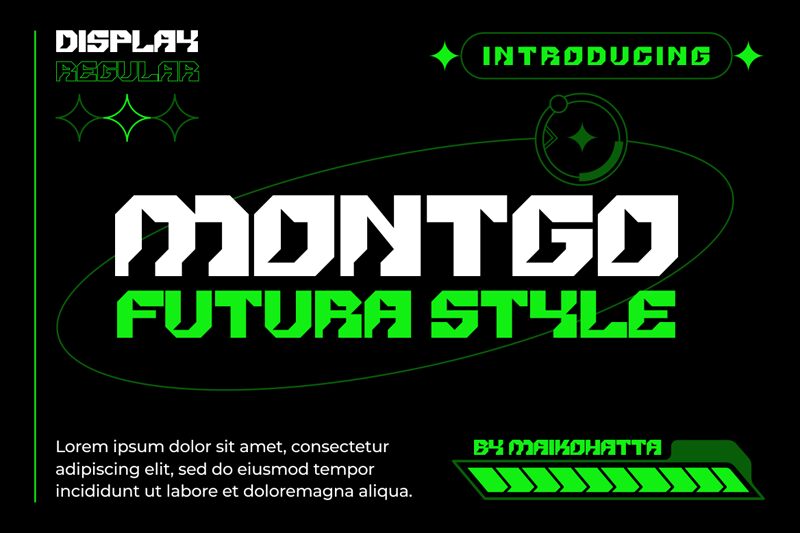
MONTGO
Montgo font by Gilang Ternadho of Maikohatta is a futuristic expanded display typeface with a bold weight and geometric, angular, and modern appearance. It is designed for getting immediate attention and being impactful whether used in large or small formats. The industrial-looking letters have block-like structures built out of straight lines and edges with no curves whatsoever. The characters look professional yet slightly unconventional which adds extra visual flavor to otherwise serious designs.
This free display font can be used to create all sorts of typography meant for posters, t-shirts, billboards, magazines, book covers, business cards, vehicle wraps as well as logos or branding projects. Montgo also works beautifully in animations like kinetic typography videos or shorts used for advertising purposes on social media channels. Shop windows, menu boards at restaurants and cafes could also benefit from its unique personality whenever exposed to customers who walk by.